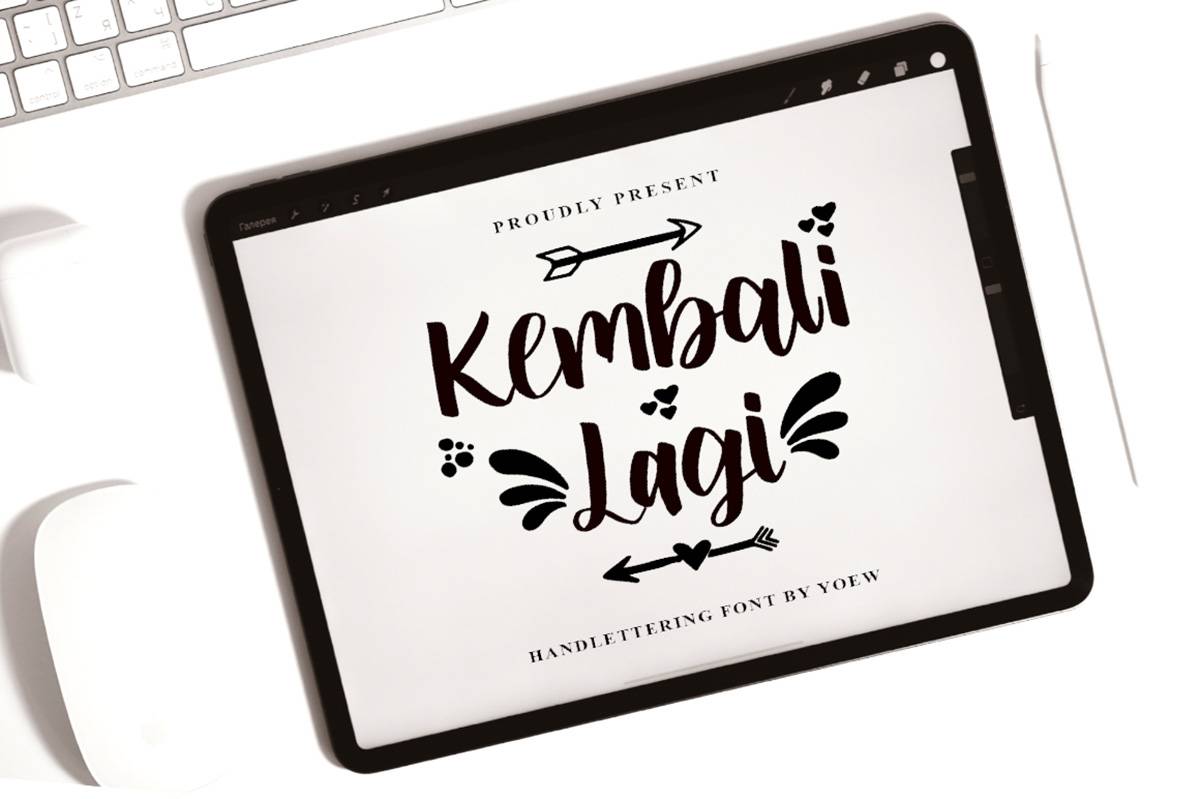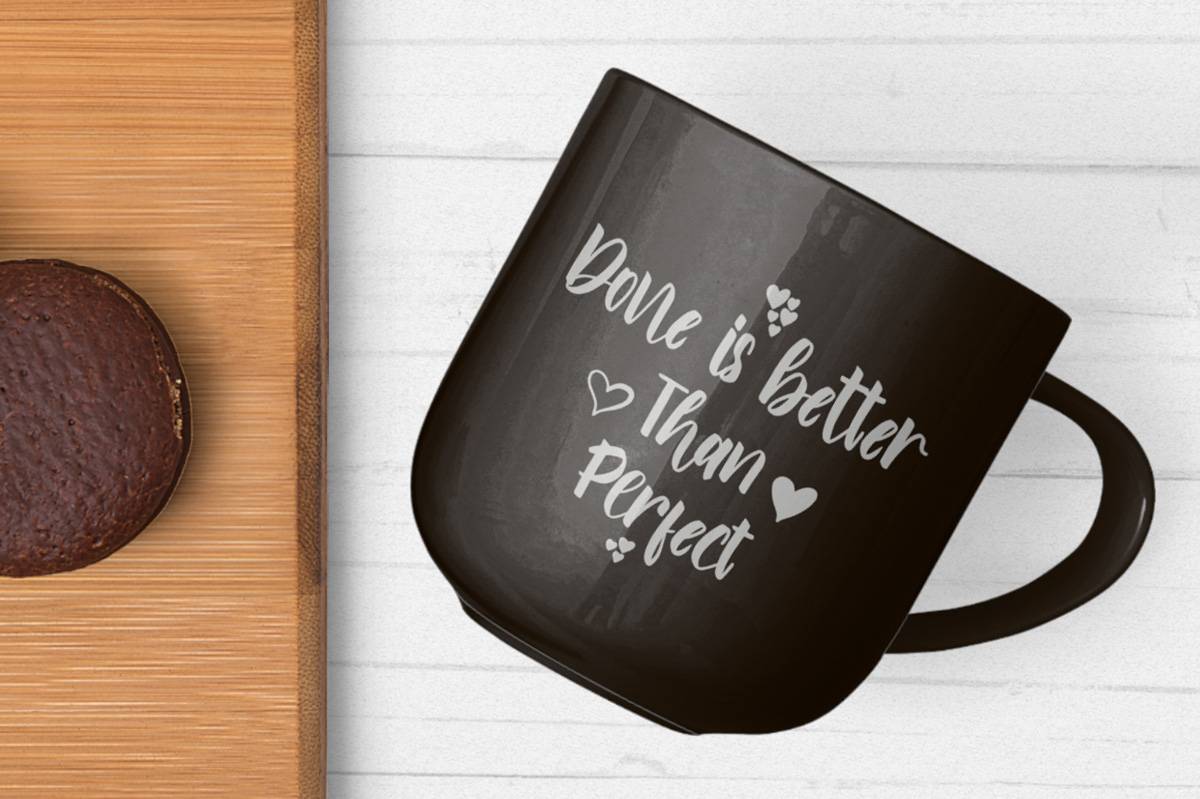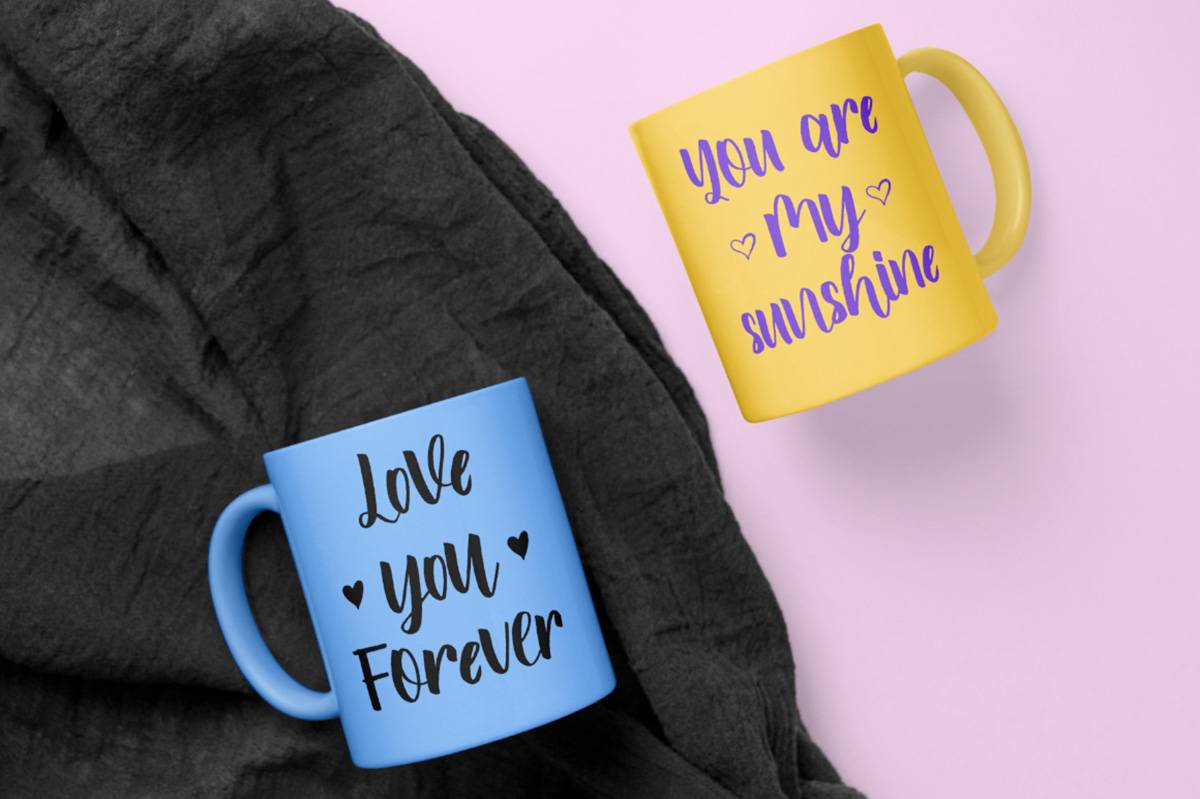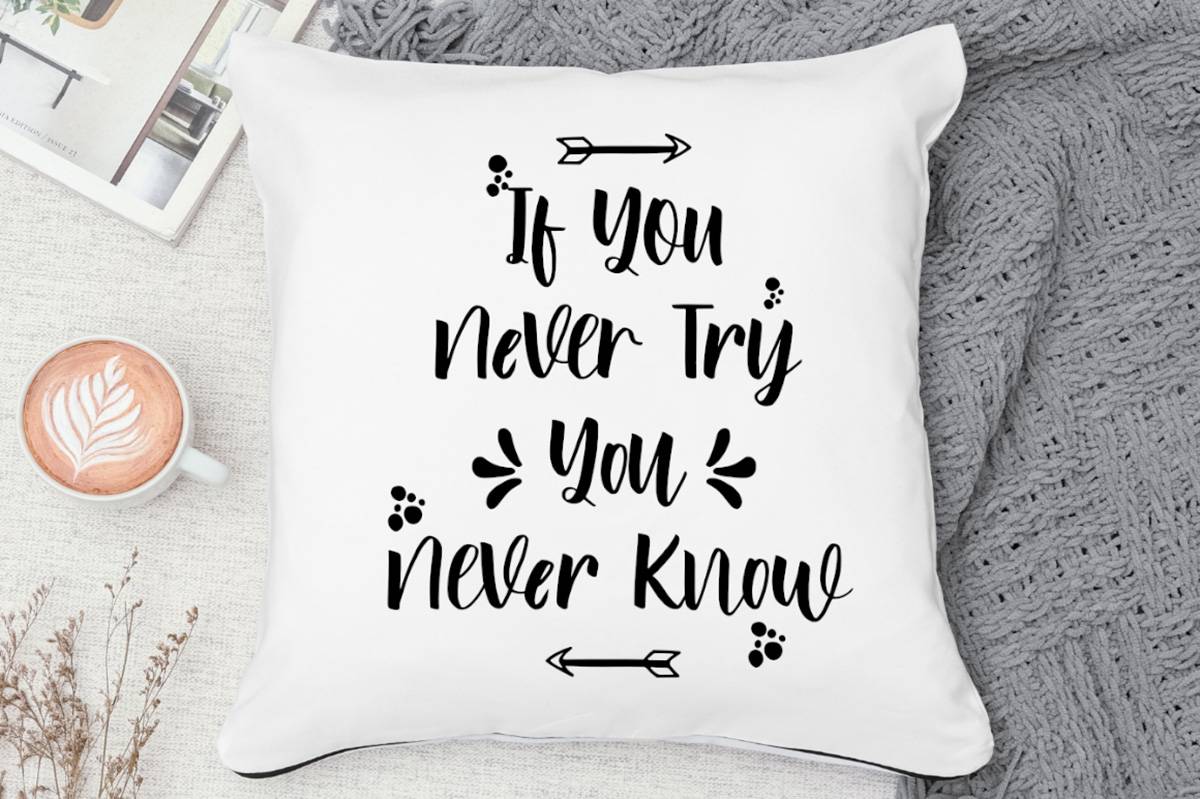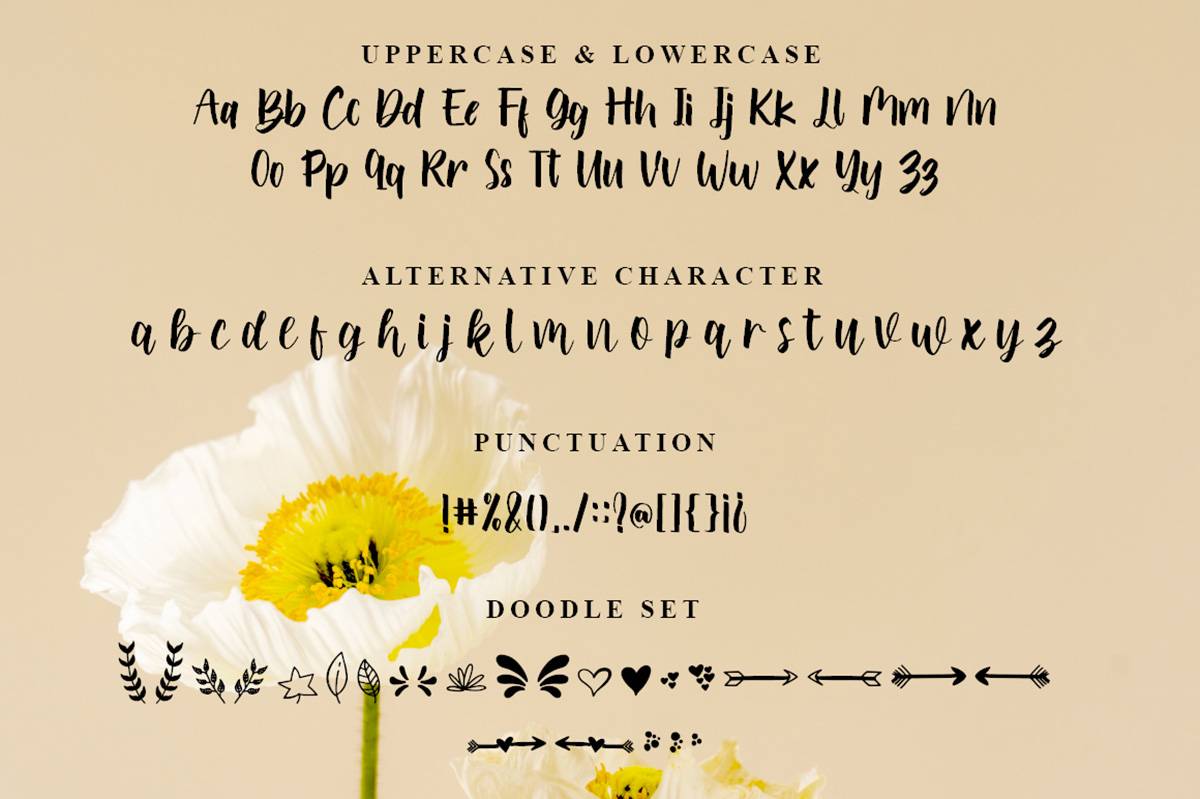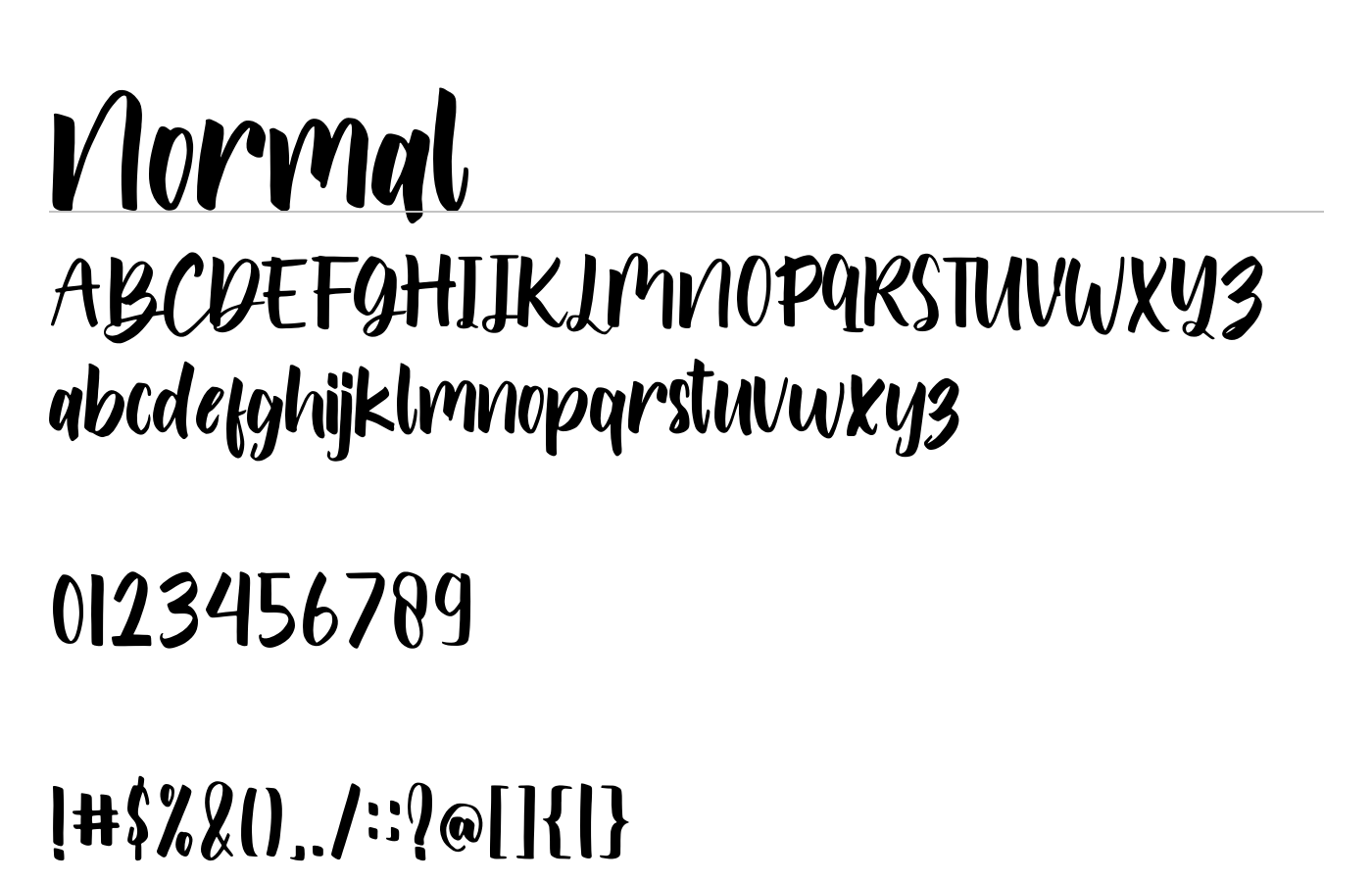
Kembali Lagi is a bold and lively handwritten script font with a friendly, casual vibe. Its moderately tall x-height and varied stroke widths give it an energetic and approachable feel, making it perfect for creative projects, branding, and informal headlines. This font works well for designs that seek a personal touch, such as invitations, social media graphics, and playful packaging.
Kembali Lagi Font